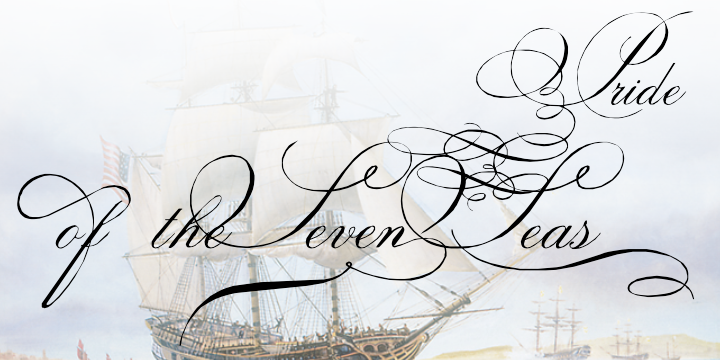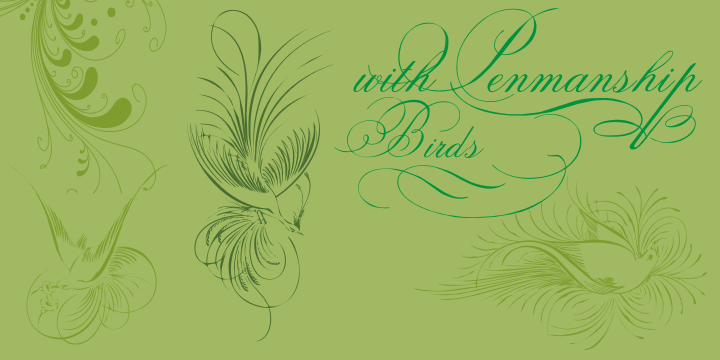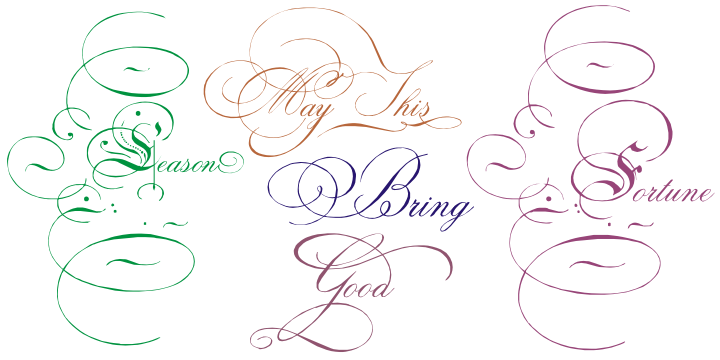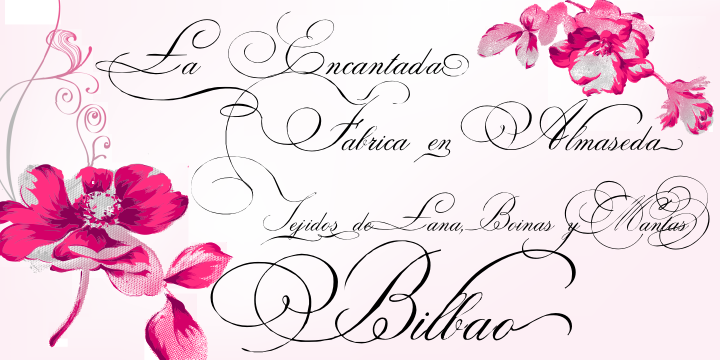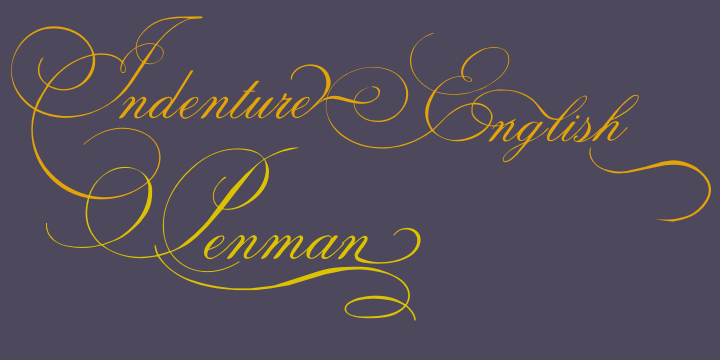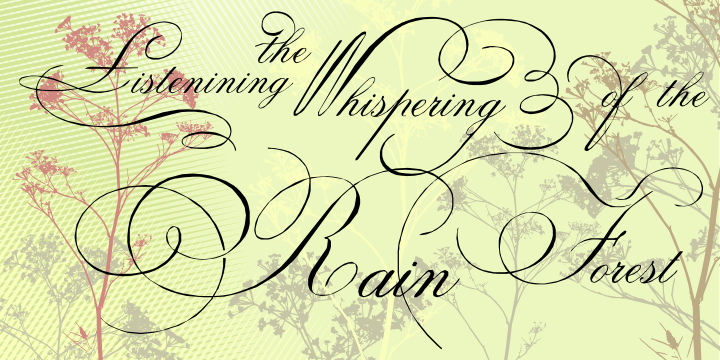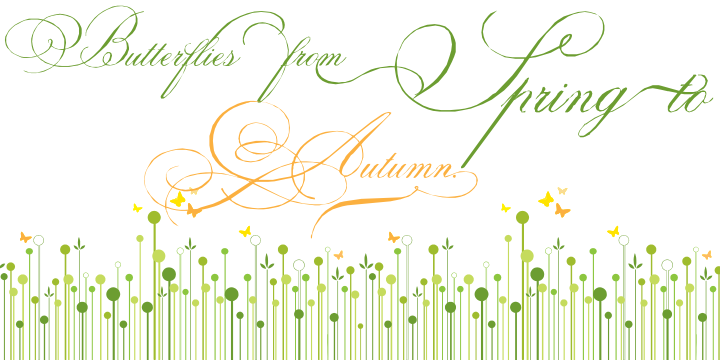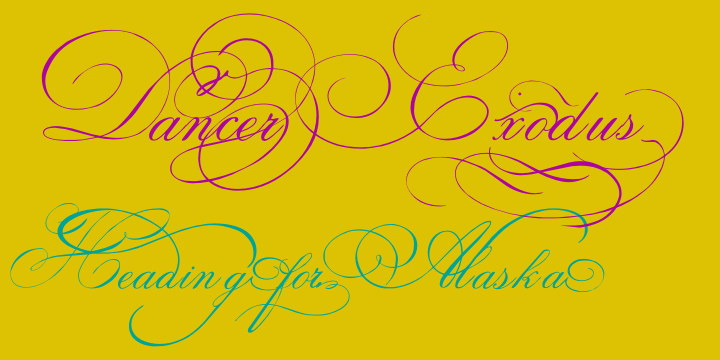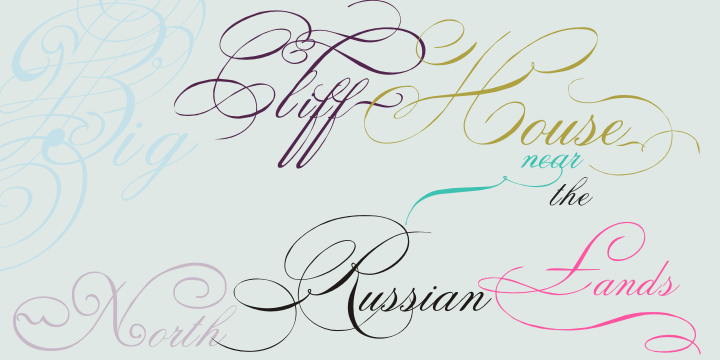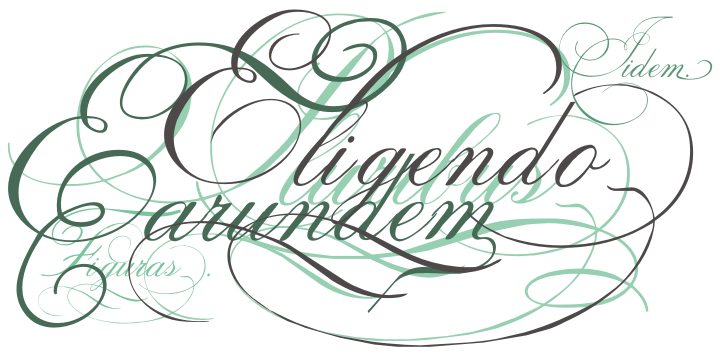
Indenture English Penman (1 font)
This font has a little of everything, with hundreds of glyphs: dozens of versals to each alphabet letter, some versals in Old English style, plus flourishes to use at beginnings of paragraphs or chapters, and many additional flourishes to create perfect ancient documents.
Old-style Digits, Ligatures, Discretionary Ligatures, Small Caps, Historical Forms, Alternates, Contextual Alternates, Swash